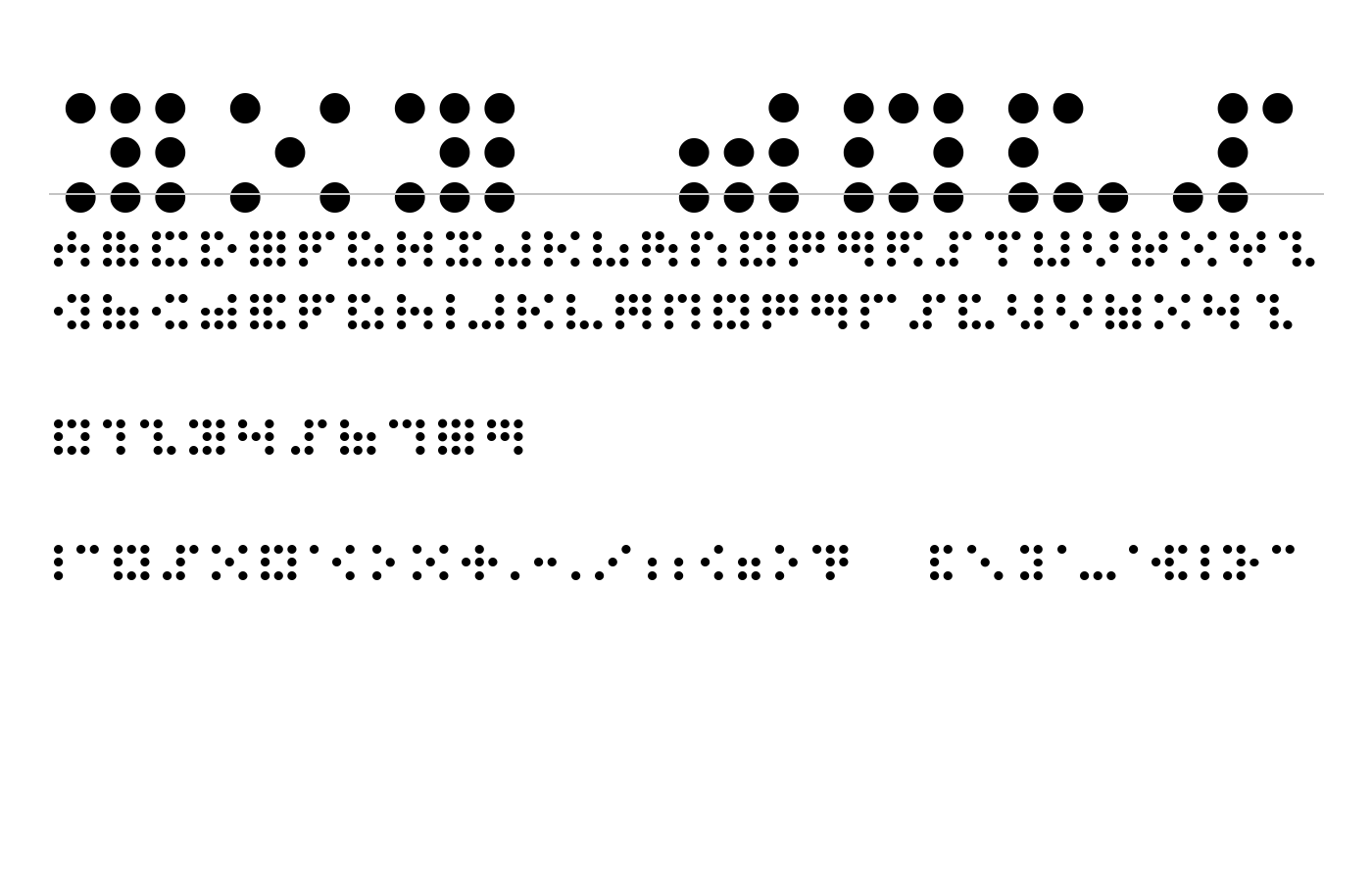
3x3 Dots is a unique, monospaced sans serif font composed entirely of evenly spaced circular dots arranged in a strict grid pattern, evoking a digital or pixelated aesthetic. Its uniform weight, minimal contrast, and geometric simplicity make it ideal for futuristic, tech-inspired designs, coding visuals, or playful, modern branding that seeks a distinctive, minimalist feel. This font works best in headlines, logos, or digital interfaces where a clear yet unconventional style is desired.
3x3 dots Font
About 3x3 dots Font